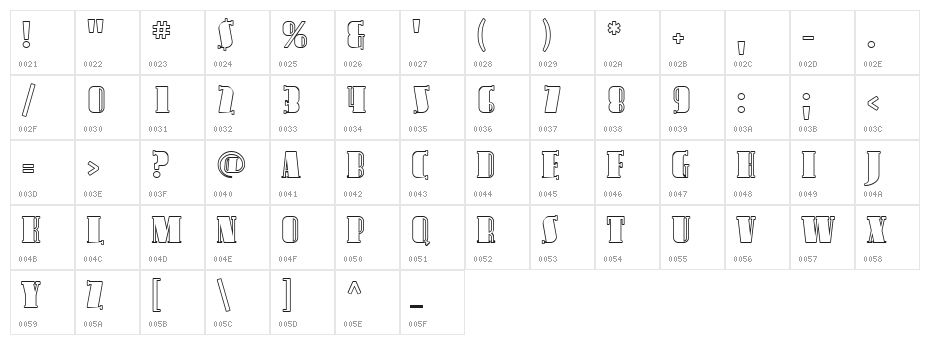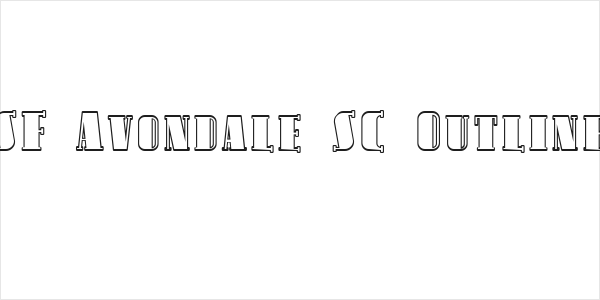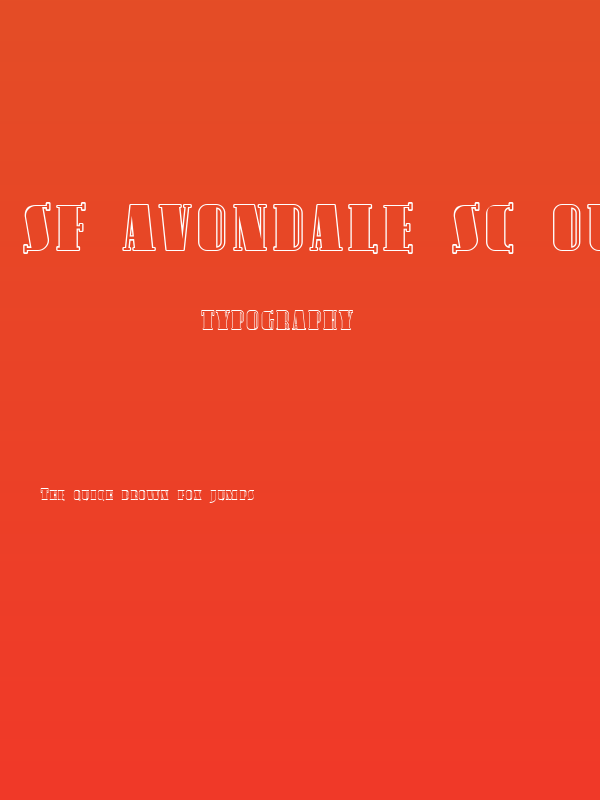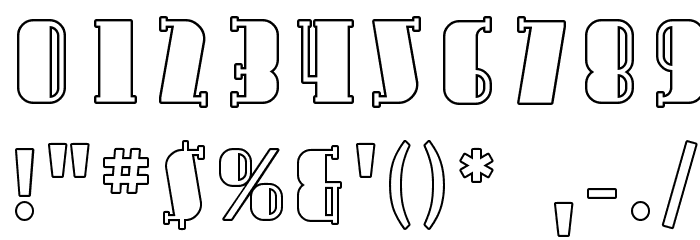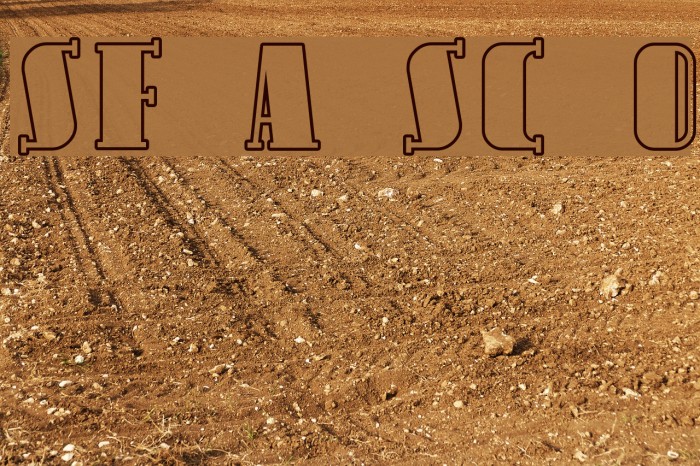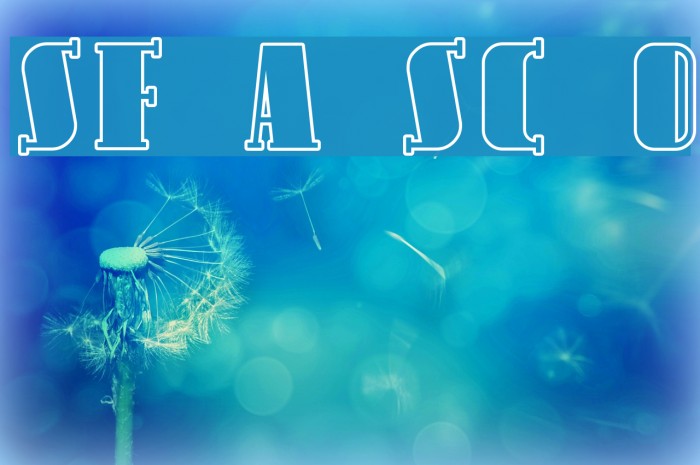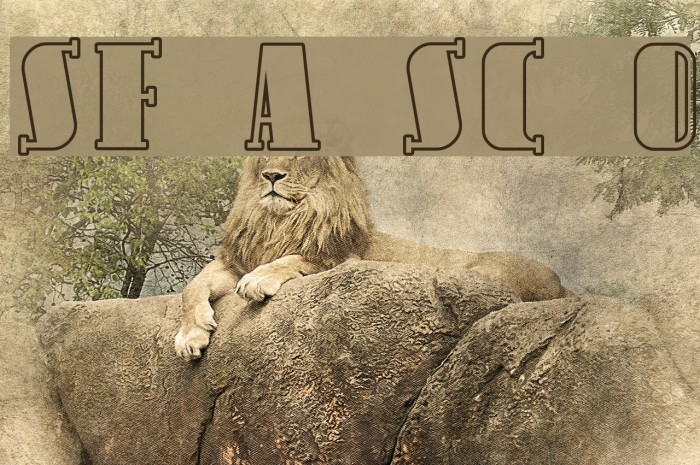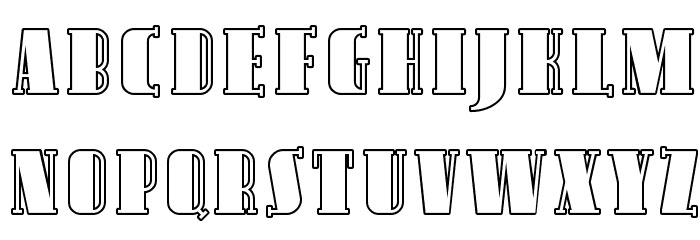
SF Avondale SC Outline Font
SF Avondale SC Outline Description
This font features a bold, outlined style with a strong presence. The characters are designed with a distinct outline that gives them a three-dimensional appearance. The uppercase and lowercase letters maintain a consistent height, while the numbers and special characters follow the same outlined design. The font's structure is geometric and modern, with sharp angles and clean lines that create a sense of strength and stability. The spacing between characters is normal, allowing for clear readability while maintaining the bold aesthetic.
| Proposed Projects | Ideal for headlines, posters, logos, and branding materials that require a strong visual impact. |